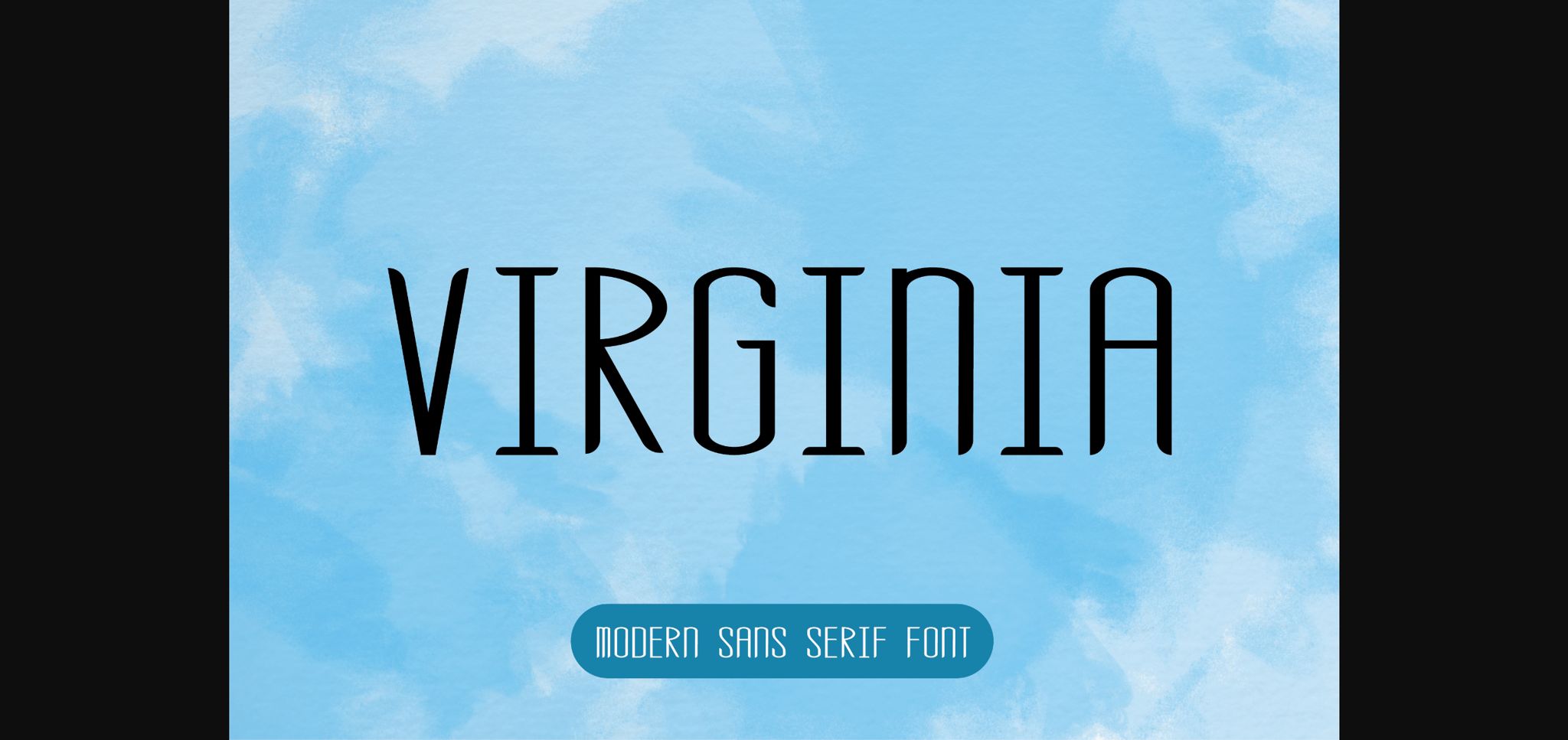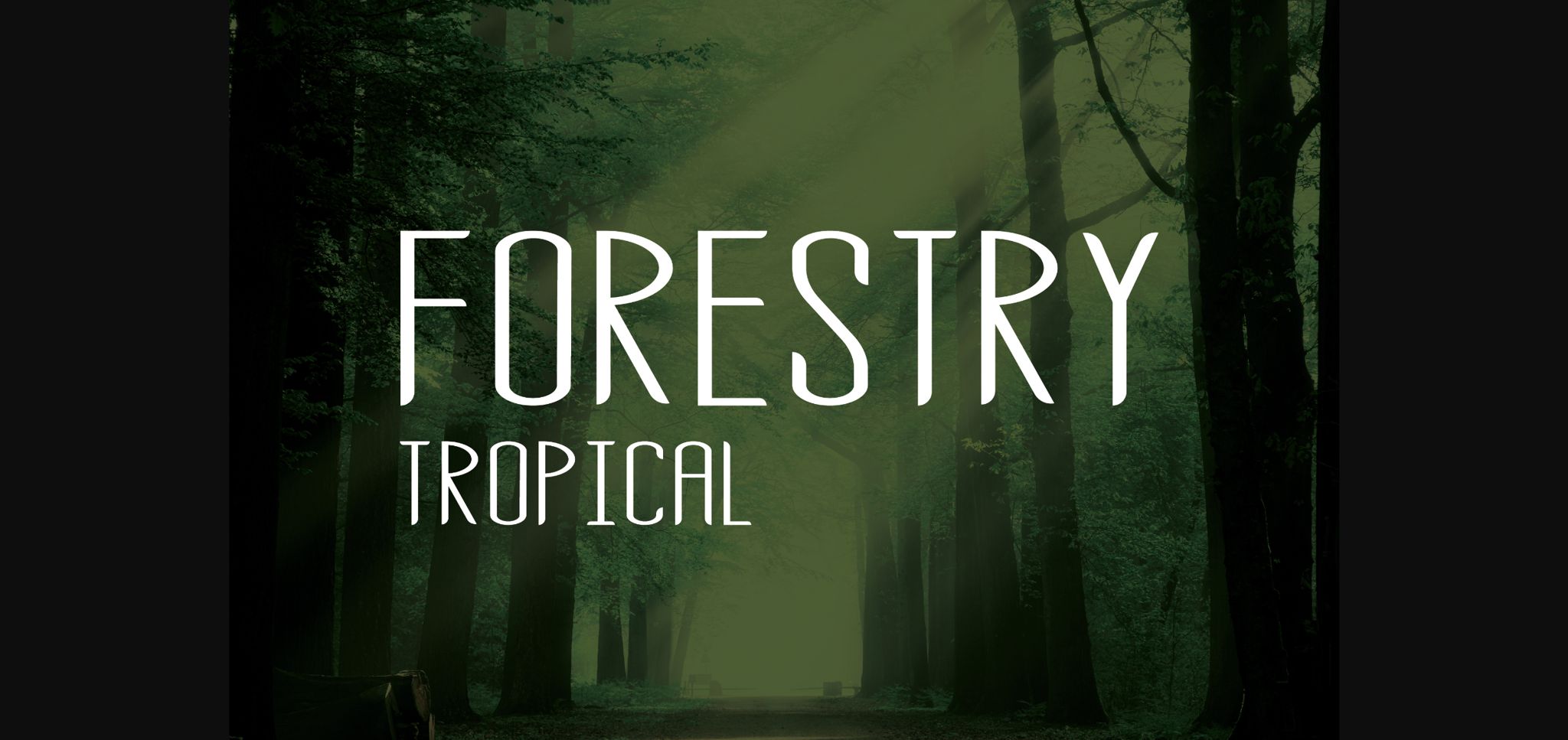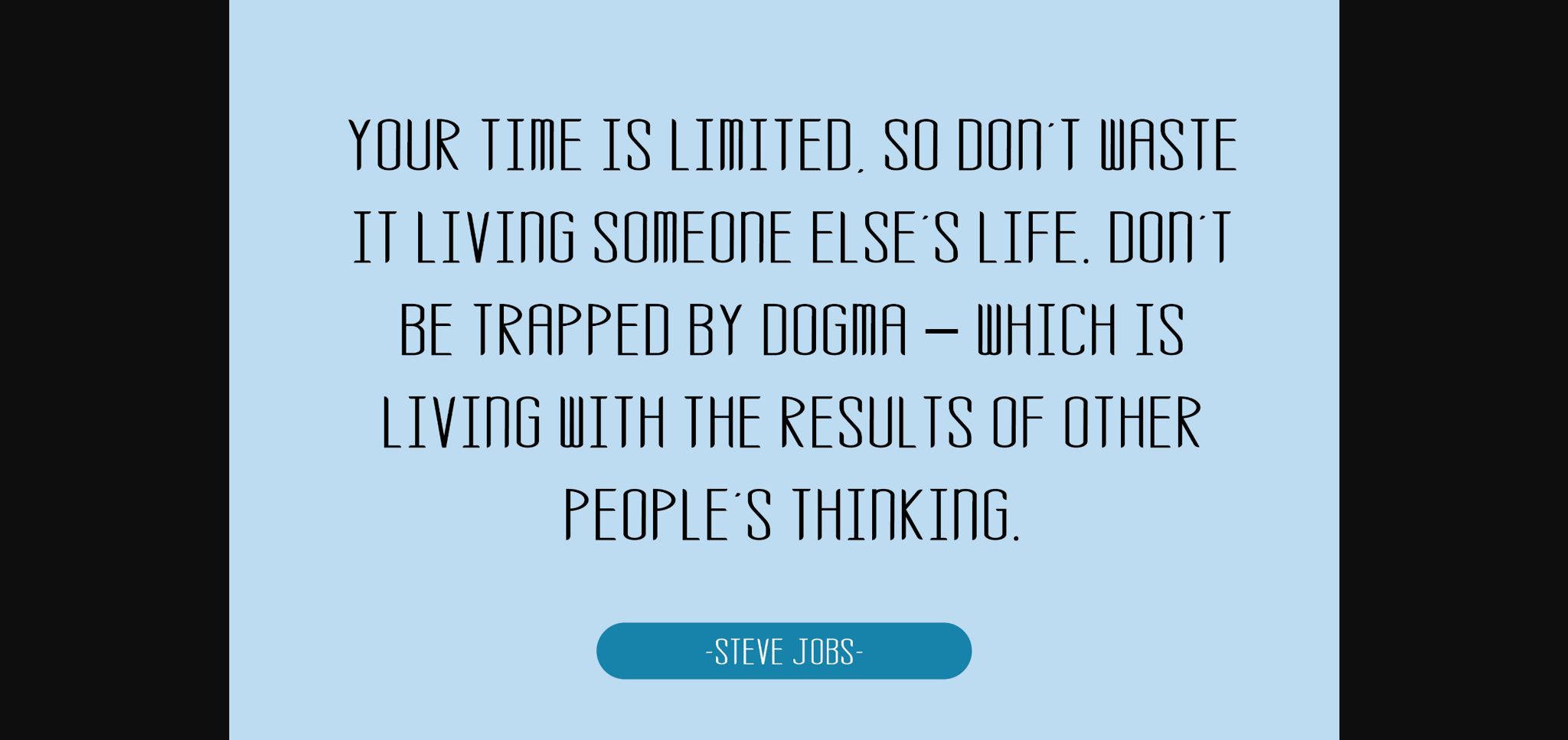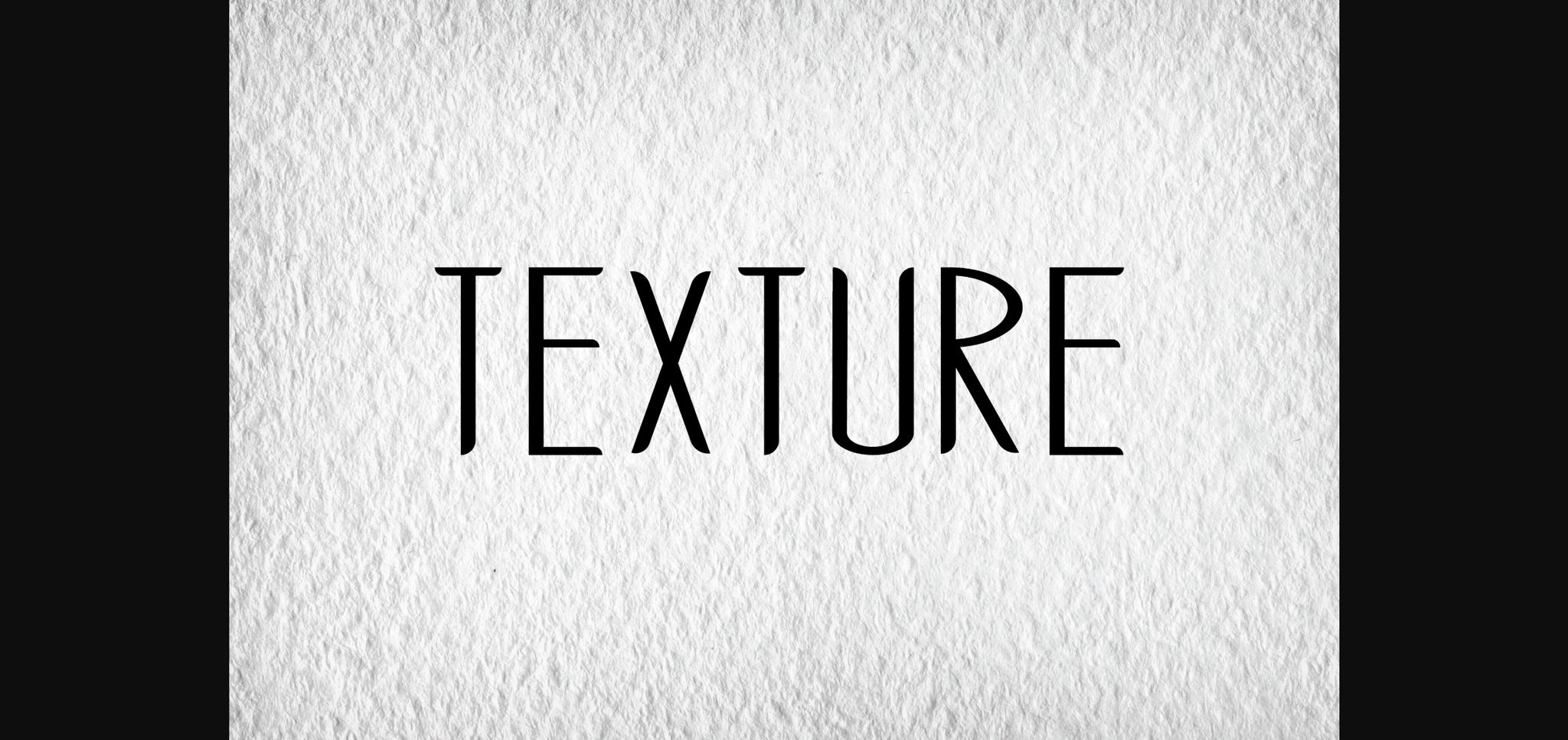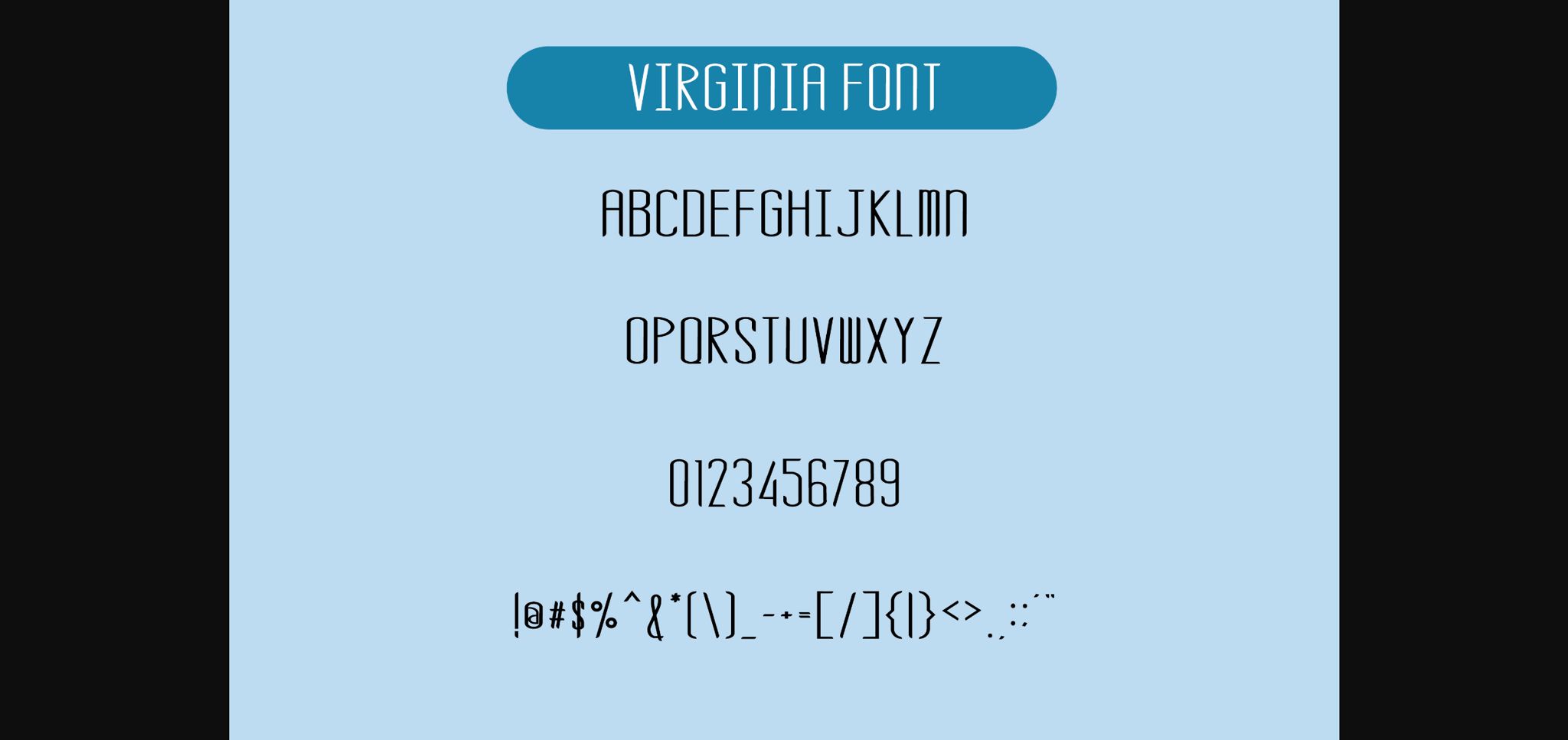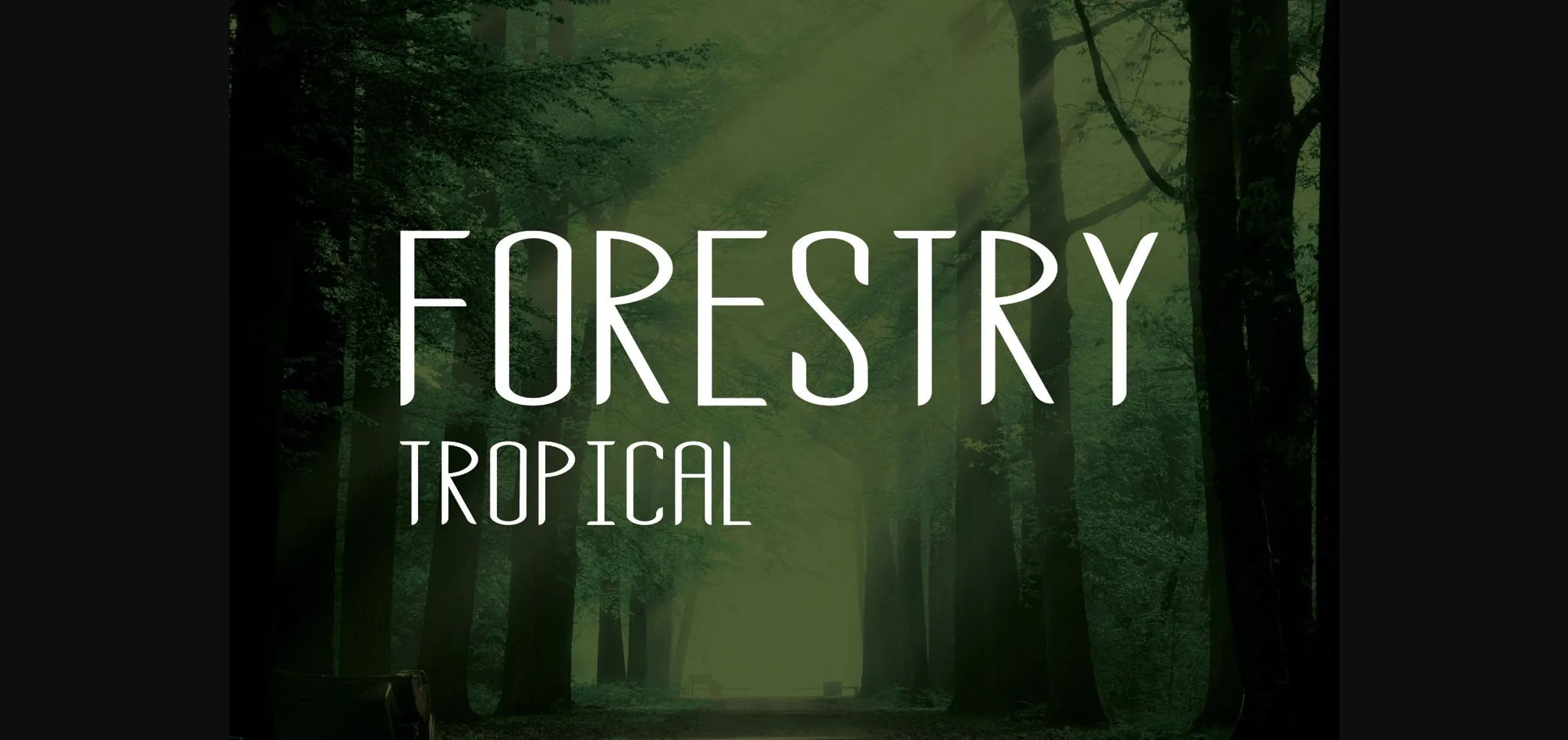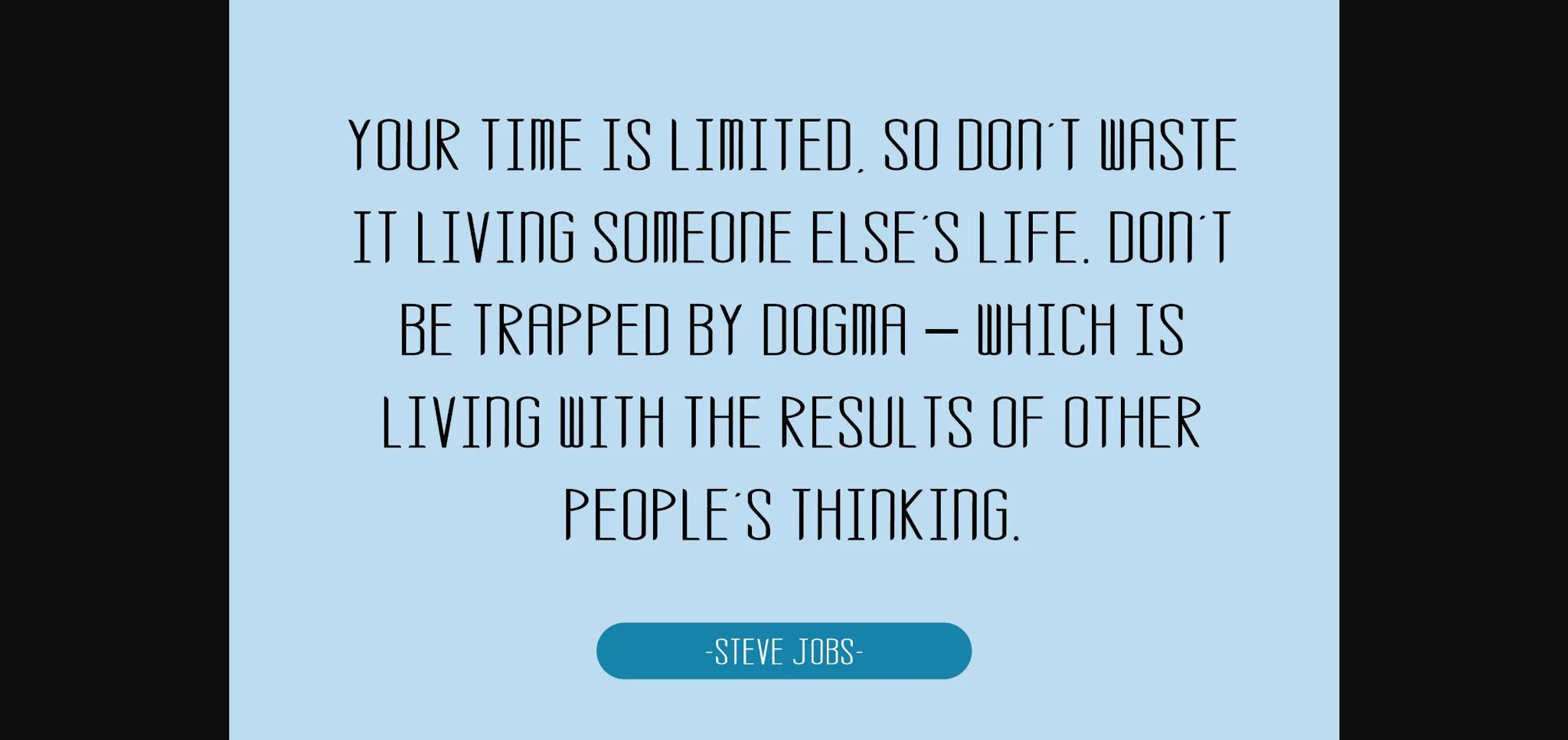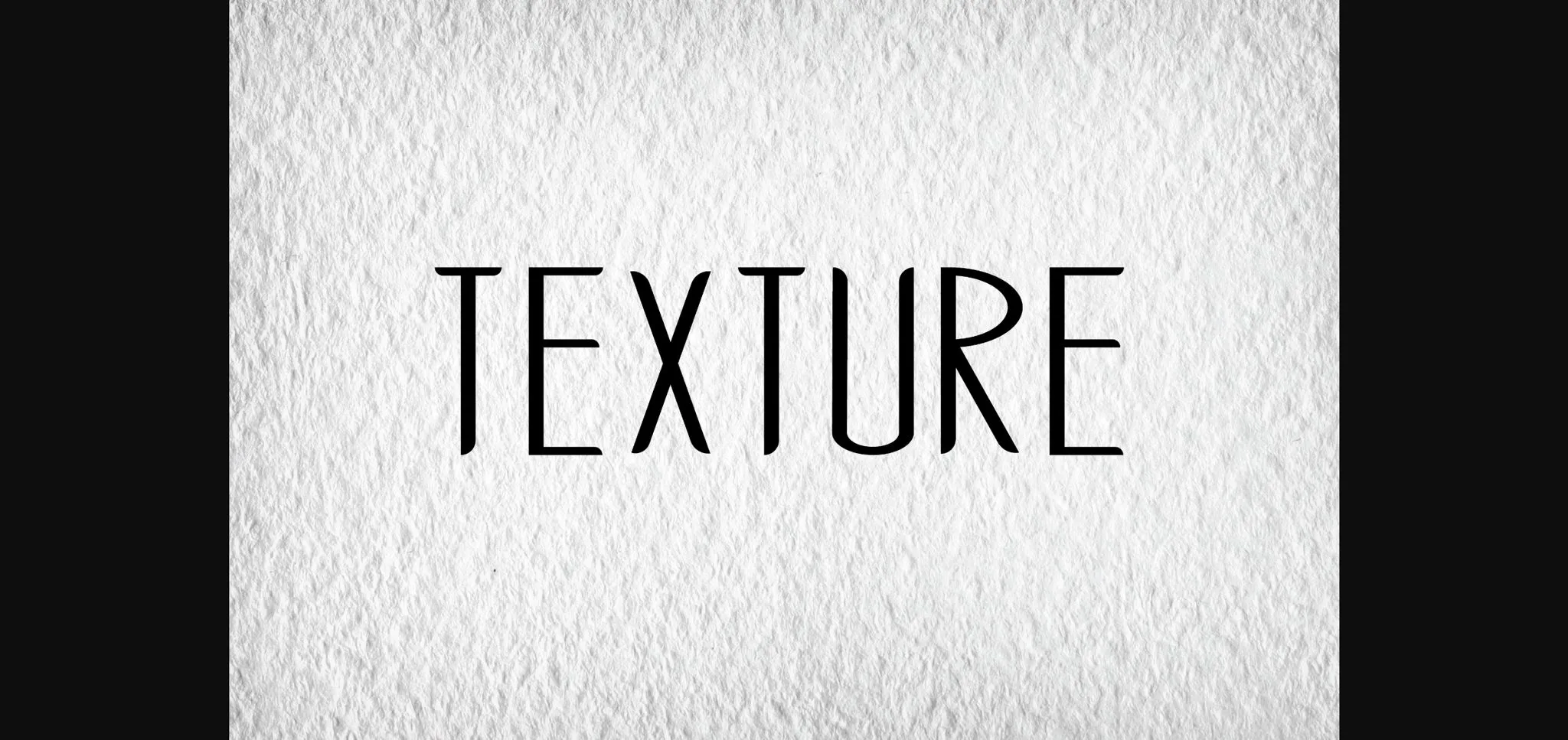
HomeSans Serif FontsVirginia Font Sans Serif Fonts Virginia Font FacebookXPinterestWhatsApp 1 of 7 ... Virginia Font Poster 2... Virginia Font Poster 3... Virginia Font Poster 4... Virginia Font Poster 5... Virginia Font Poster 6... Virginia Font Poster 7... About Virginia Font Virginia is an elegant sans serif font that blends traditional influences into a contemporary aesthetic. This font is ideal great for branding, logos, greeting cards, business cards, and so much more. DOWNLOAD NOW People also explored Golistic Font Babbies Font Hunting Font Don Carlitto Font With Rose Font Branding Font Rufino Font Homesick Font Beyond Font 301 0 TagsVirginia Font Previous articleQube FontNext articleExa Font LEAVE A REPLY Cancel reply Comment: Please enter your comment! Name:* Please enter your name here Email:* You have entered an incorrect email address! Please enter your email address here Website: Save my name, email, and website in this browser for the next time I comment. Personal Use Free Die Nasty Personal Use Free Read more about this font Ayam Bakar Personal Use Free Read more about this font Harshita Personal Use Free Read more about this font Sabina Illusion Personal Use Free Read more about this font BLOG Free vs Paid Fonts: Why Investing in Premium Fonts Is Worth It Free vs Paid Fonts: Why Premium Fonts Are Worth It in 2025 The debate of free vs paid fonts continues in the design world. While... How to Install and Use Fonts on Windows, macOS, and Web Projects Fonts That Capture the Spirit of New York City Top 10 Handwritten Fonts That Elevate Your Designs